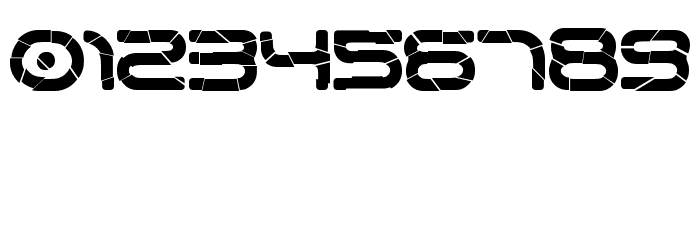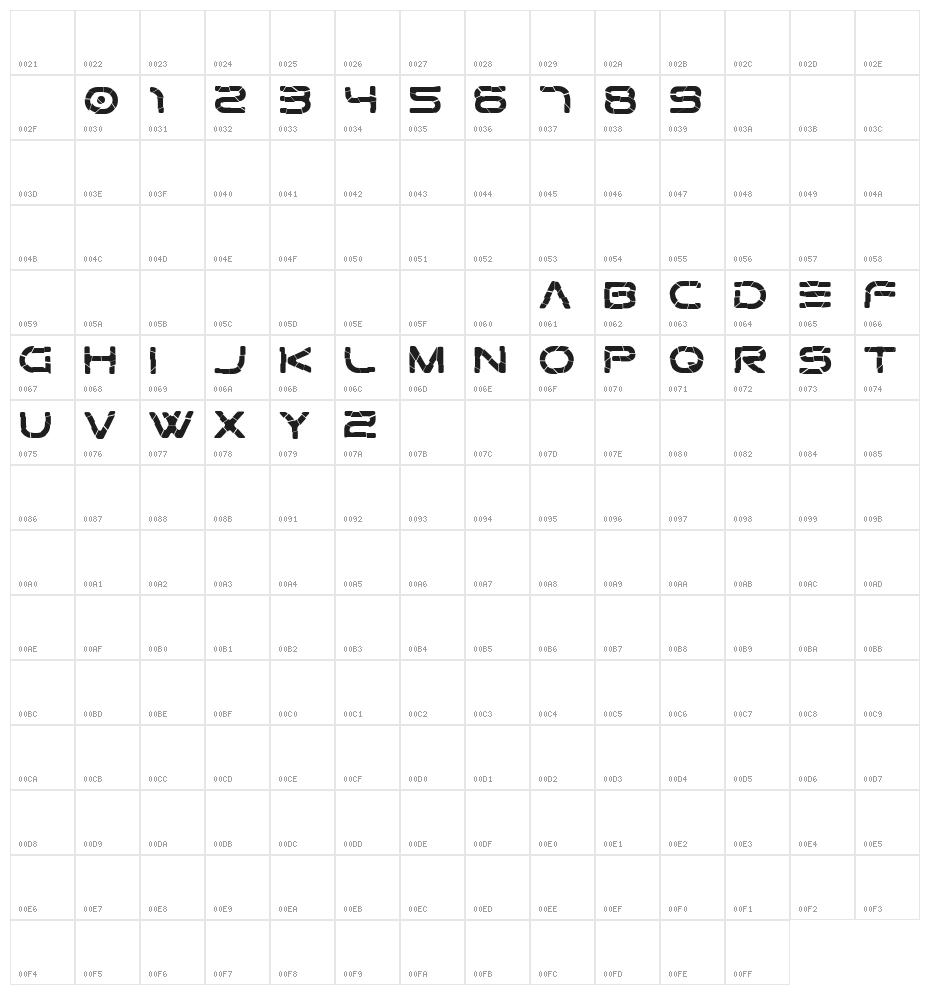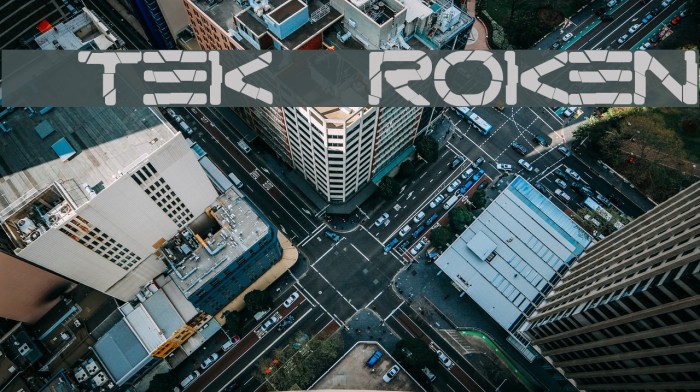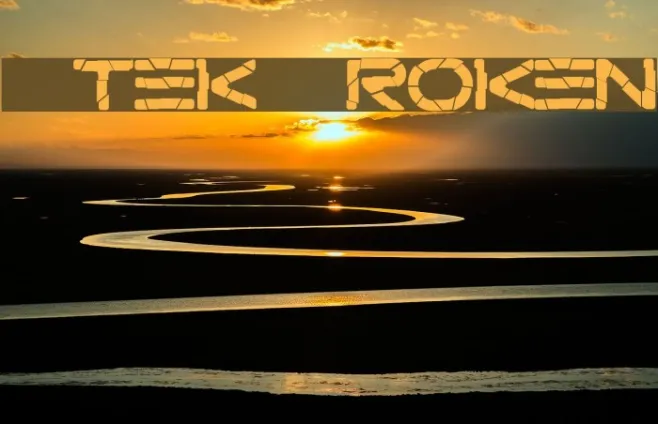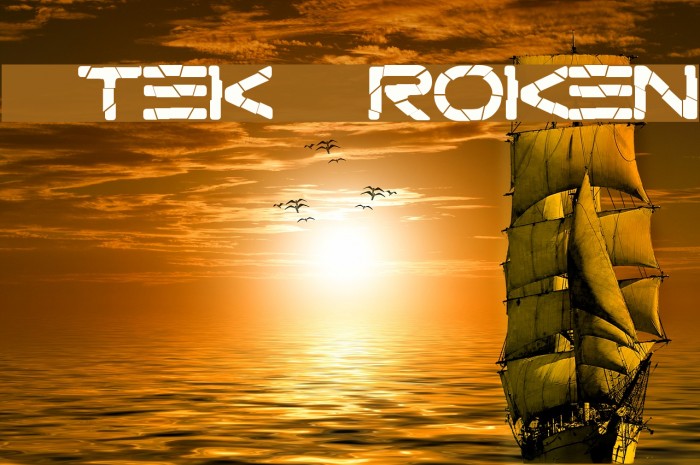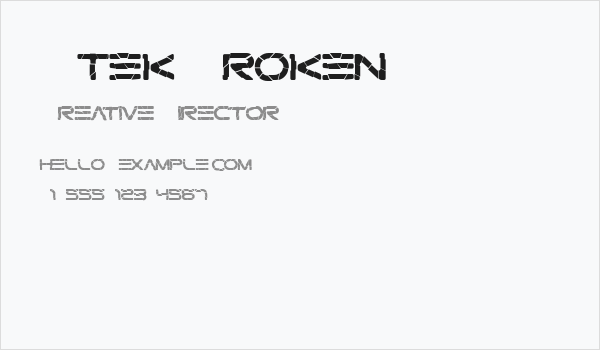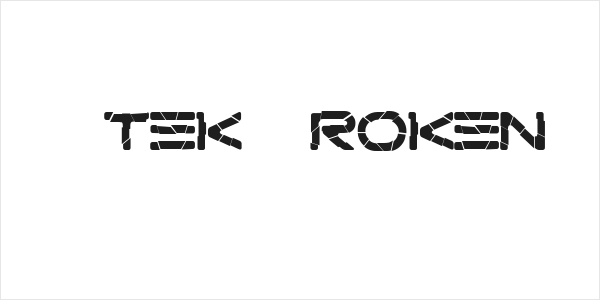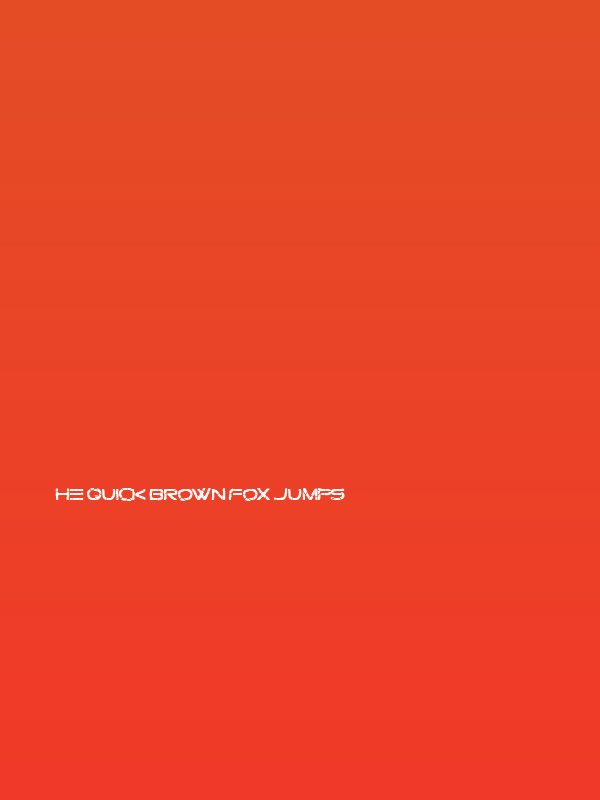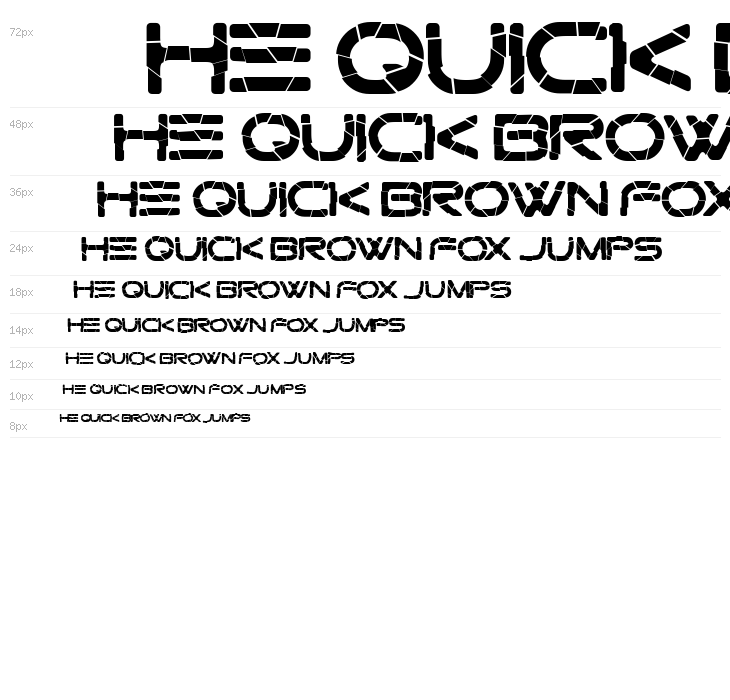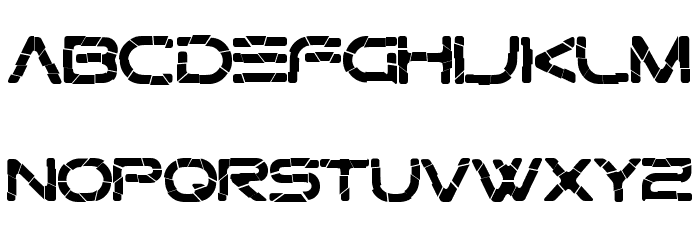
Gtek Broken Font
Gtek Broken Description
This font features a unique, fragmented design that gives each character a broken, digital appearance. The letters and numbers are composed of disconnected segments, creating a futuristic and edgy look. This style is reminiscent of digital glitches or shattered glass, making it stand out in any design. The characters maintain a consistent height and width, ensuring readability despite their unconventional form. The font's bold and geometric nature makes it suitable for modern and tech-oriented projects, where a distinctive and eye-catching typeface is desired.
| Proposed Projects | Ideal for tech-themed posters, digital art, video game graphics, and futuristic branding. |